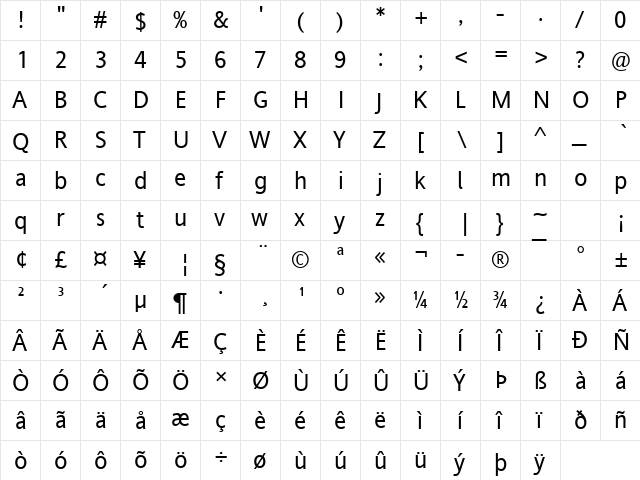
Andale Sans UI Regular
Design Context for Andale Sans UI Typeface
Andale Sans UI is a composed and adaptable typeface that performs quietly and consistently across a wide range of design contexts.
Pro Tip: Use Andale Sans UI in both headline and body roles to test its range before committing to a single application.